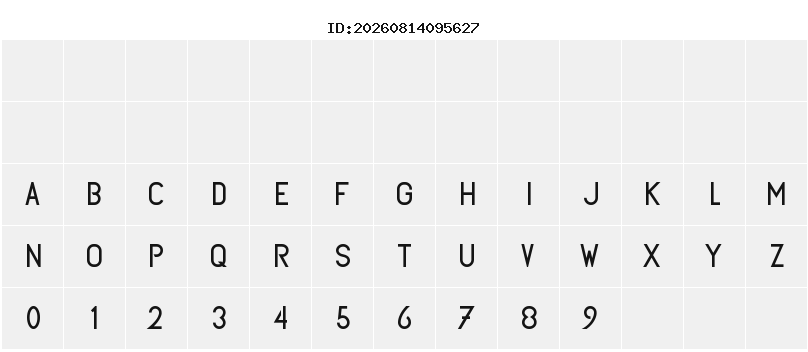
• Font Name: SubtleSansRegular
• Full Font Name: SubtleSansRegular-Regular
• Designer: Atle Mo
About SubtleSansRegular.ttf
SubtleSansRegular.ttf is a modern, elegant sans-serif font designed for ultimate readability and visual harmony. Perfect for branding, headlines, web design, and print materials.